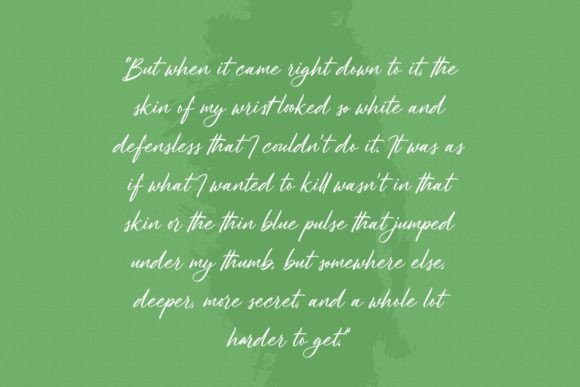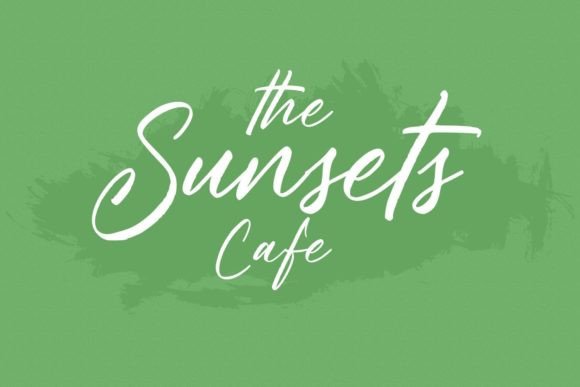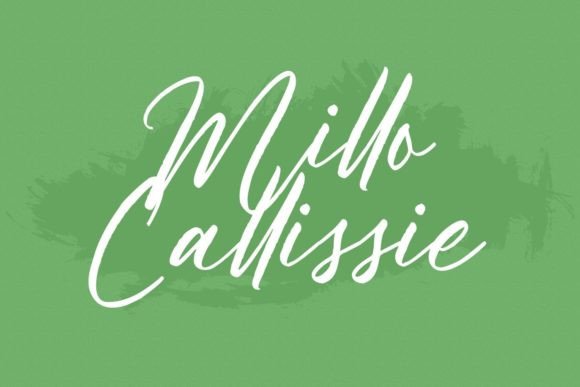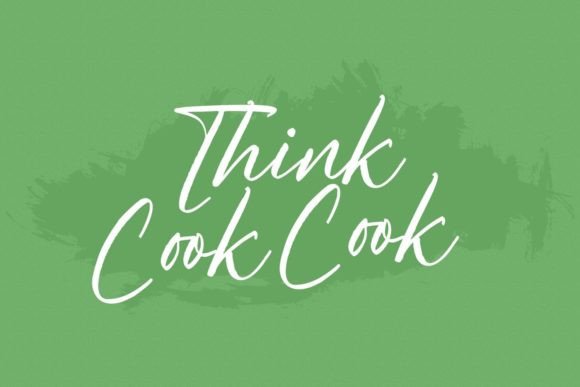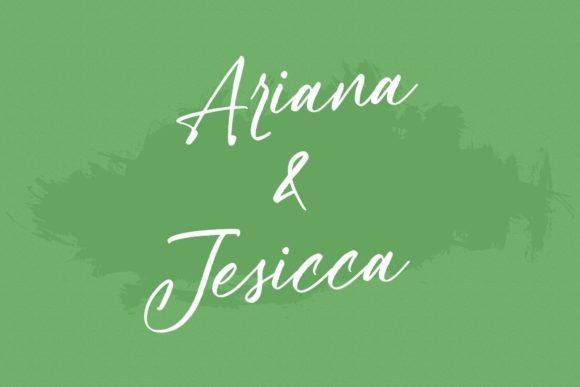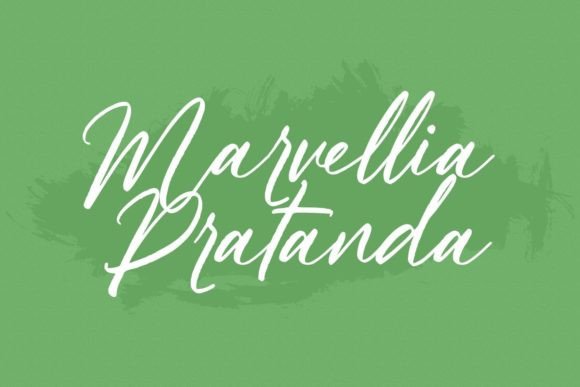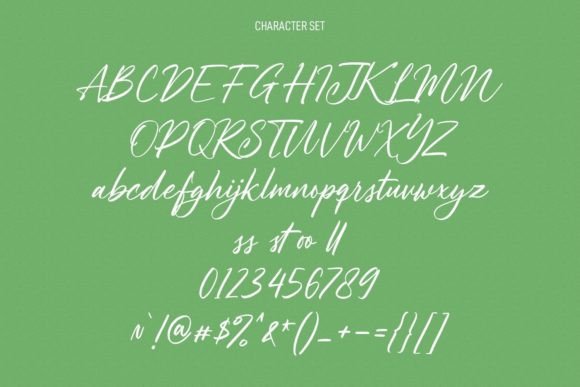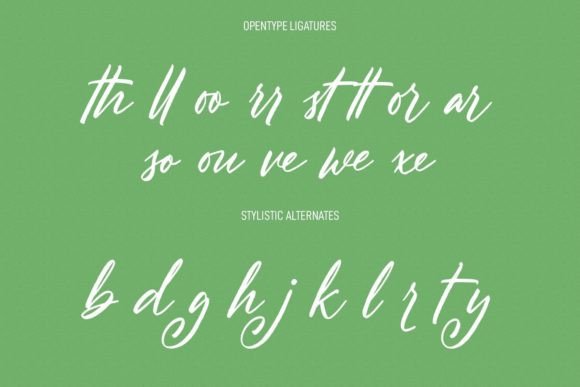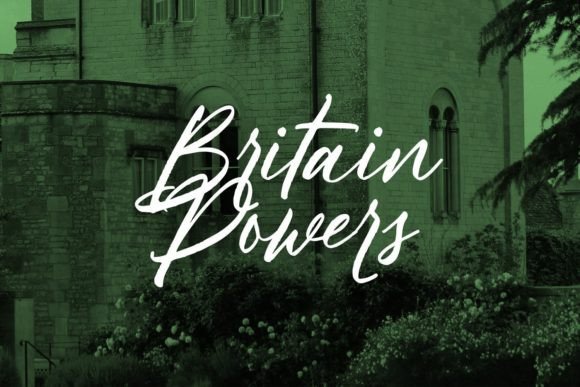
Hollycombs Font
About Hollycombs Font
Hollycombs is a casual handwritten script font that brings a relaxed and friendly vibe to your designs. Its effortless flow and natural strokes make it a perfect choice for a wide range of applications. Whether you’re working on logo design, social media graphics, movie titles, book titles, short text, or even long text letters, Hollycombs adds a touch of authenticity and warmth to your projects.
One of the standout features of Hollycombs is its versatility. This font is not only suitable for short and catchy text but also works well for longer paragraphs, making it a great choice for both headlines and body text. Its readability ensures that your message is conveyed clearly, regardless of the length of the text. Additionally, Hollycombs pairs seamlessly with sans-serif or serif fonts, making it an excellent option for secondary text, creating a balanced and harmonious typographic composition.
Hollycombs’ casual and handwritten style gives your designs a personal touch, making them feel more relatable and approachable to your audience. Whether you’re designing a logo for a friendly neighborhood café, crafting social media posts for a small business, or creating book titles for a heartwarming novel, Hollycombs adds a human element to your projects, enhancing the overall connection with your viewers.
Incorporating Hollycombs into your designs communicates a sense of authenticity and creativity. Its casual charm and readability make it a favorite among designers who seek a font that combines a handwritten feel with versatility. By choosing Hollycombs, you’re selecting a font that not only enhances your visual identity but also reflects your dedication to creating designs that resonate with genuine warmth and character.
So, whether you’re working on branding, digital content, print materials, or any creative project, let Hollycombs be your go-to font. Its casual handwritten style makes it a versatile choice for various design needs, allowing you to infuse your projects with a laid-back and friendly atmosphere. Embrace the charm of Hollycombs and watch your designs come to life with a touch of authenticity and approachable elegance.